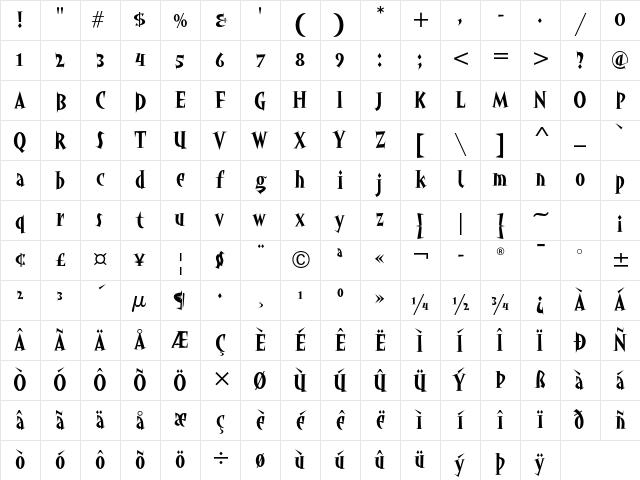
Angryhog ITC Std Regular
Designer: Timothy Donaldson
Design Context for Angryhog ITC Std
Angryhog ITC Std is a composed and adaptable typeface that performs quietly and consistently across a wide range of design contexts.